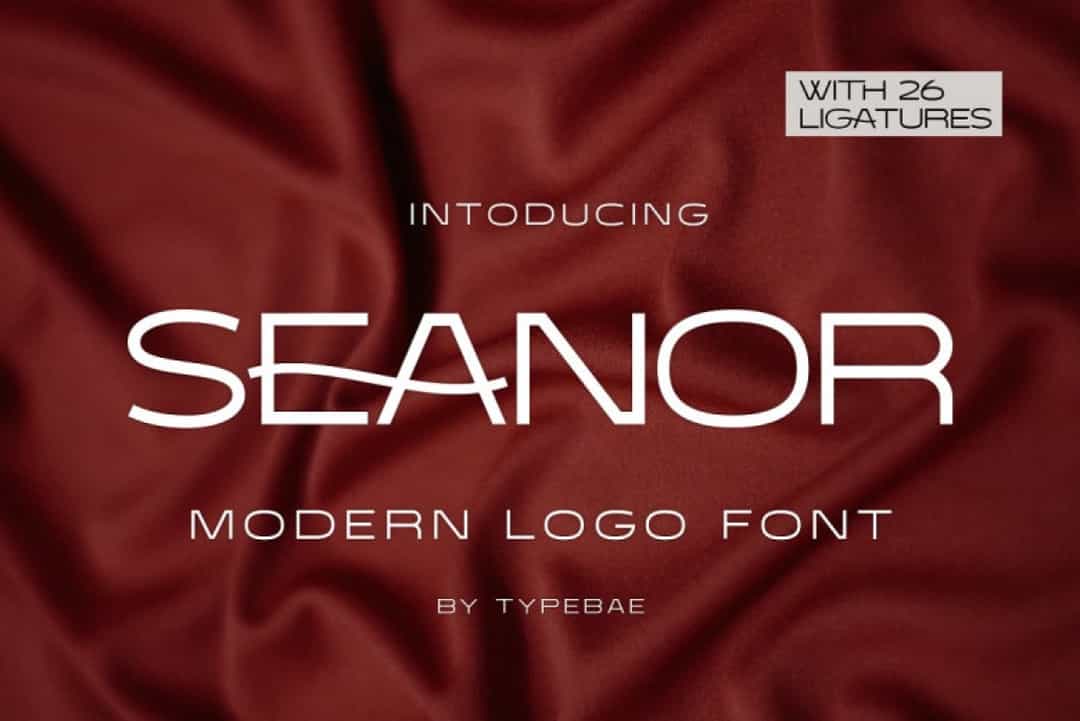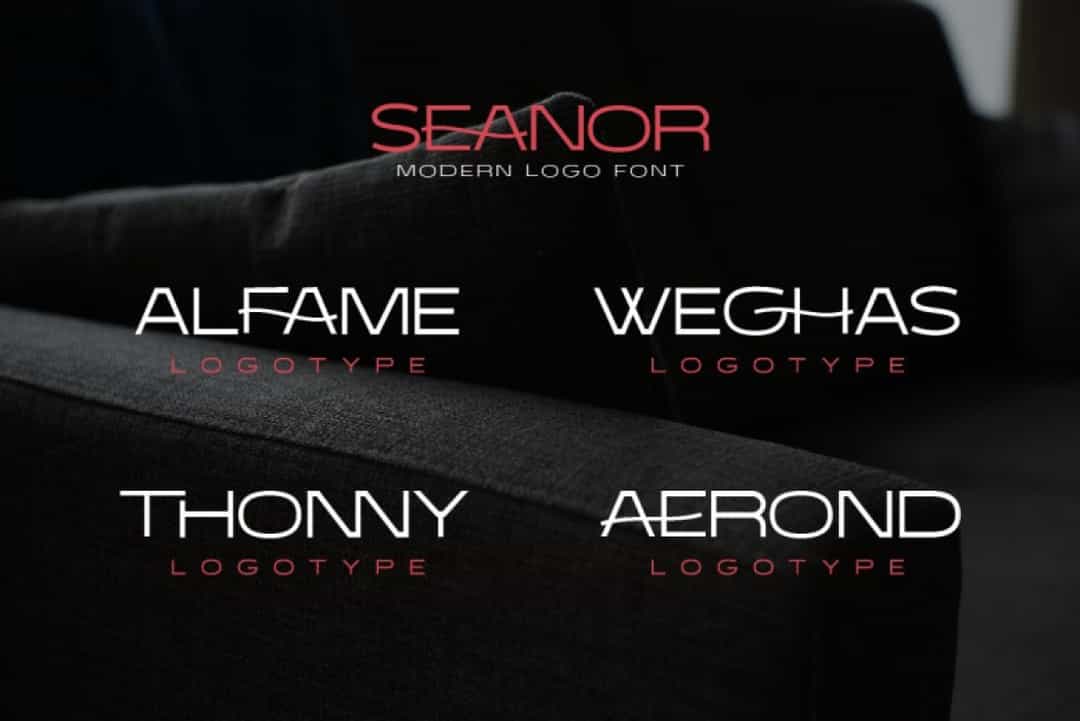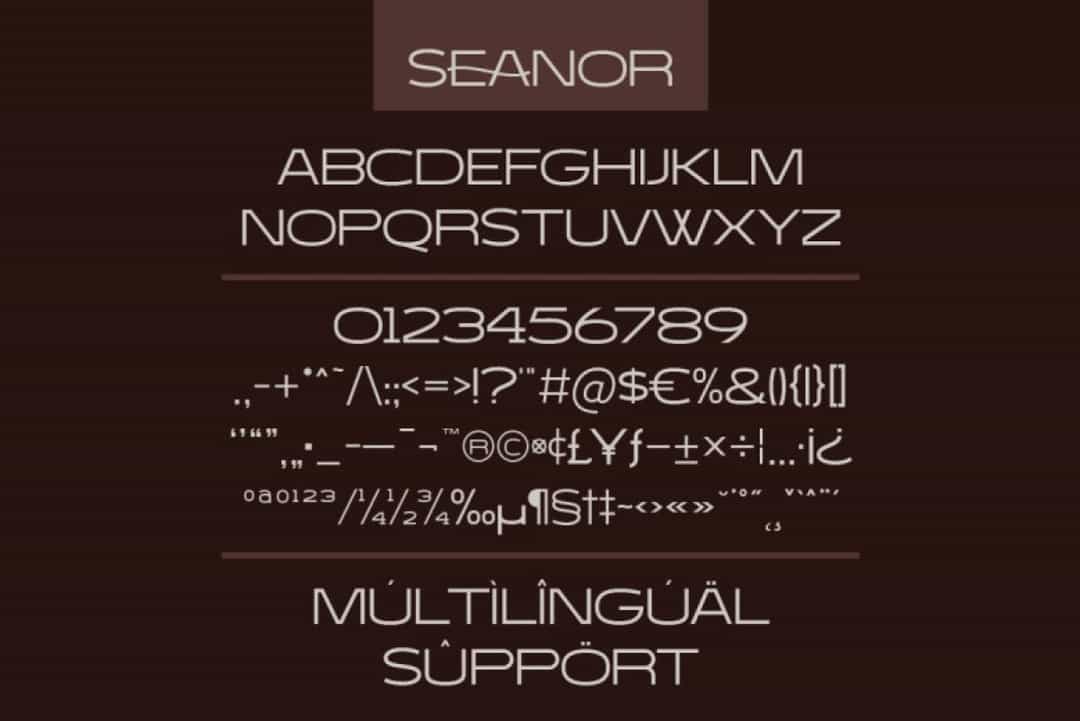
Seanor is a contemporary and flexible typeface designed for logos. Boasting 26 beautiful ligatures, Seanor makes for an eye-catching design feature perfect for logos or branding projects of all kinds. Furthermore, its stylish combination of letterforms enhances its overall aesthetic appeal – adding further appeal.